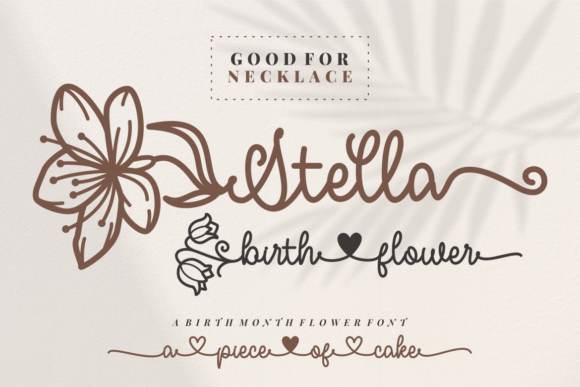
Introducing Stella Birth Flower, the font that embodies vintage elegance and artistic charm. Carefully crafted by the talented team at A Piece of Cake, this script font is designed to elevate your creative projects to new heights. Whether you're an Instagram enthusiast searching for the perfect font to make your bio stand out or a DIY aficionado in need of stunning calligraphy scripts, Stella Birth Flower is the answer you've been looking for.
With its timeless appeal and captivating design, Stella Birth Flower is more than just a font – it's a true work of art. Every letter is meticulously shaped to exude a touch of elegance, making your text come alive with a sense of sophistication. Each stroke is carefully crafted, allowing you to create visually stunning compositions that leave a lasting impression on your audience.
Imagine the power of your words when beautifully intertwined with Stella Birth Flower. It effortlessly captures attention and conveys a sense of style that is unmatched. Whether you're designing invitations, crafting custom logos, or curating a visually striking social media feed, this font will effortlessly enhance your creations.
But Stella Birth Flower offers more than just visual appeal; it also carries a deeper meaning. Inspired by the May birth flower, this font celebrates the beauty of nature and the joy that blooms with each passing season. It serves as a reminder to embrace the simple pleasures in life and find inspiration in the world around us.
Unlock your creativity and let Stella Birth Flower be your muse. Express yourself with confidence and style, as this font empowers you to create truly eye-catching designs. Its versatility knows no bounds, adapting seamlessly to any project you have in mind. From wedding stationery to brand identities, this font will breathe life into your visions and make them shine.